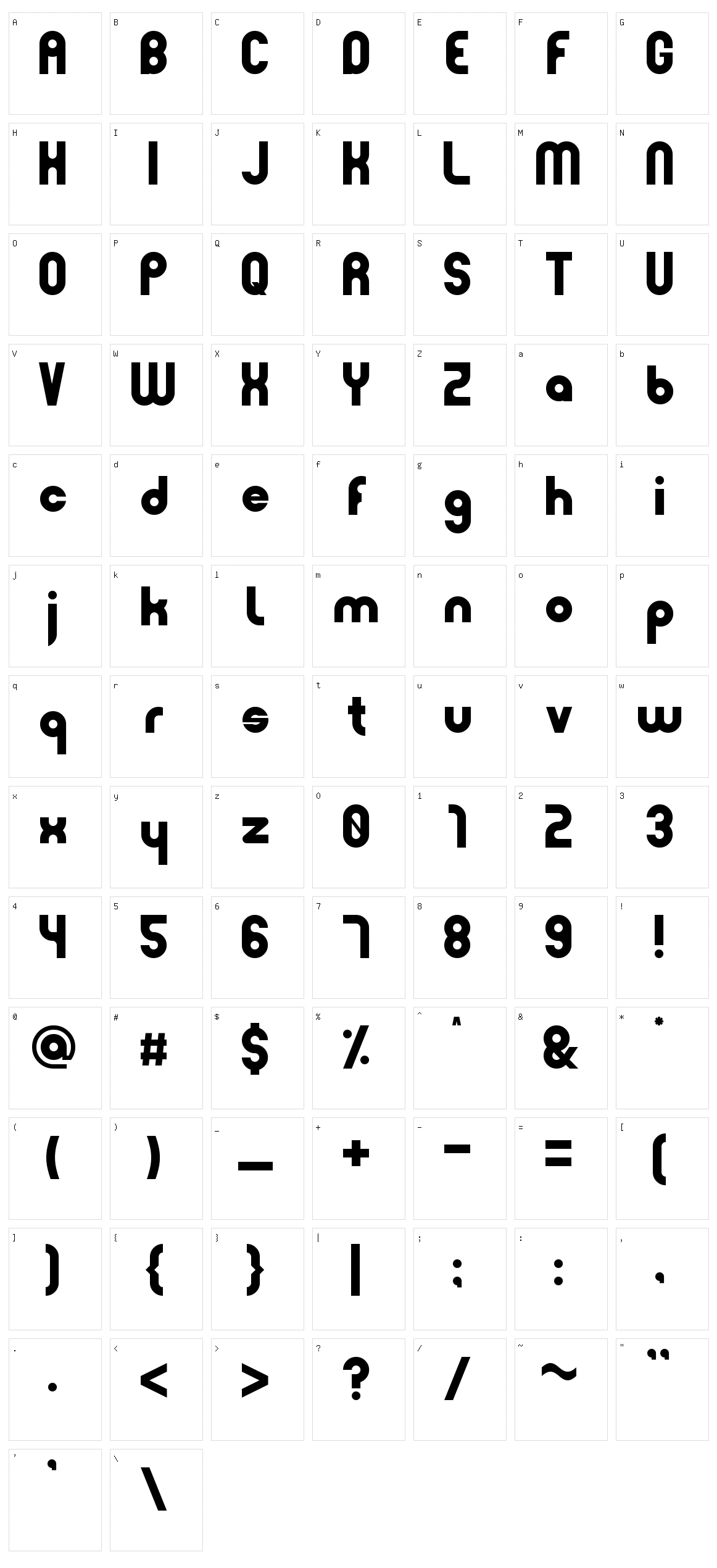
The free font Minimoon is carefully designed by Blazej Gradziel, showcasing a thoughtful balance of creativity and usability and falls under the Groovy font style. When you download the ZIP file, it contains only 6.53 KB of font files, making it lightweight and quick to download. Please review the license details below to understand permitted usage and distribution rights. If license information is not available, we recommend using this font for personal projects only or contacting the author directly for commercial usage permissions.